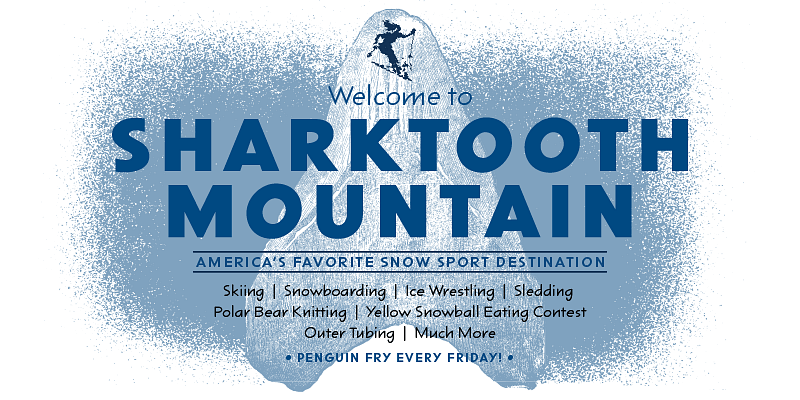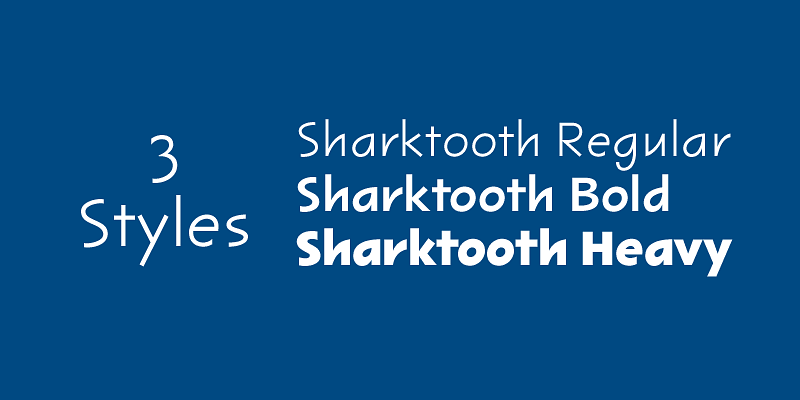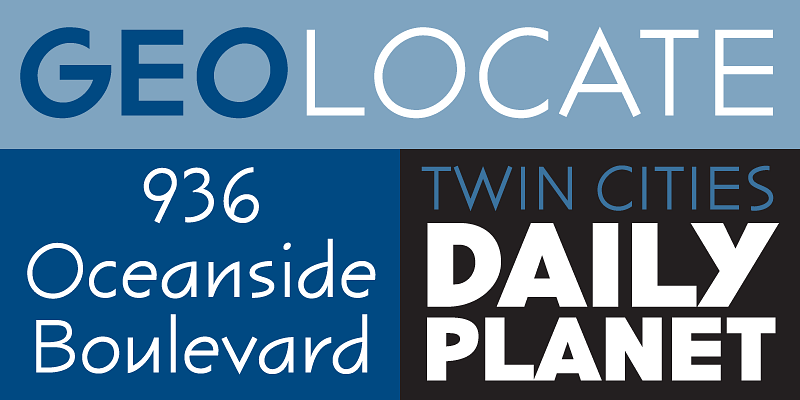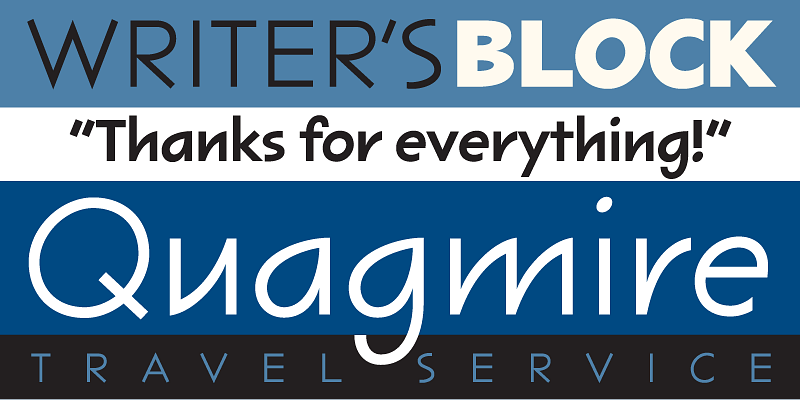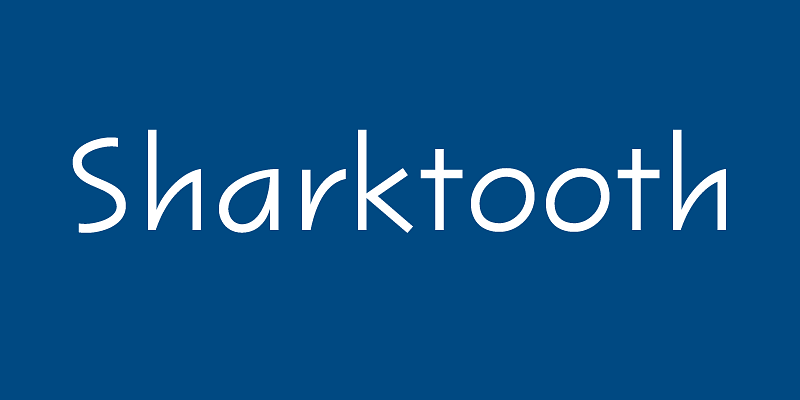
Sharktooth (2000, 2003) began as an attempt to turn Felt Tip Roman into a “real” typeface. My approach was to take the essential underlying forms of Felt Tip Roman and rationalize them into regular typographic forms, simplifying and stylizing a subset of the existing shapes. In the end, only glimpses of Felt Tip Roman remained, and Sharktooth turned out distinctly different from its source. As a text face, it has a lively texture and is quite legible. The name comes from the sharp, angular shapes seen in many of the letters.